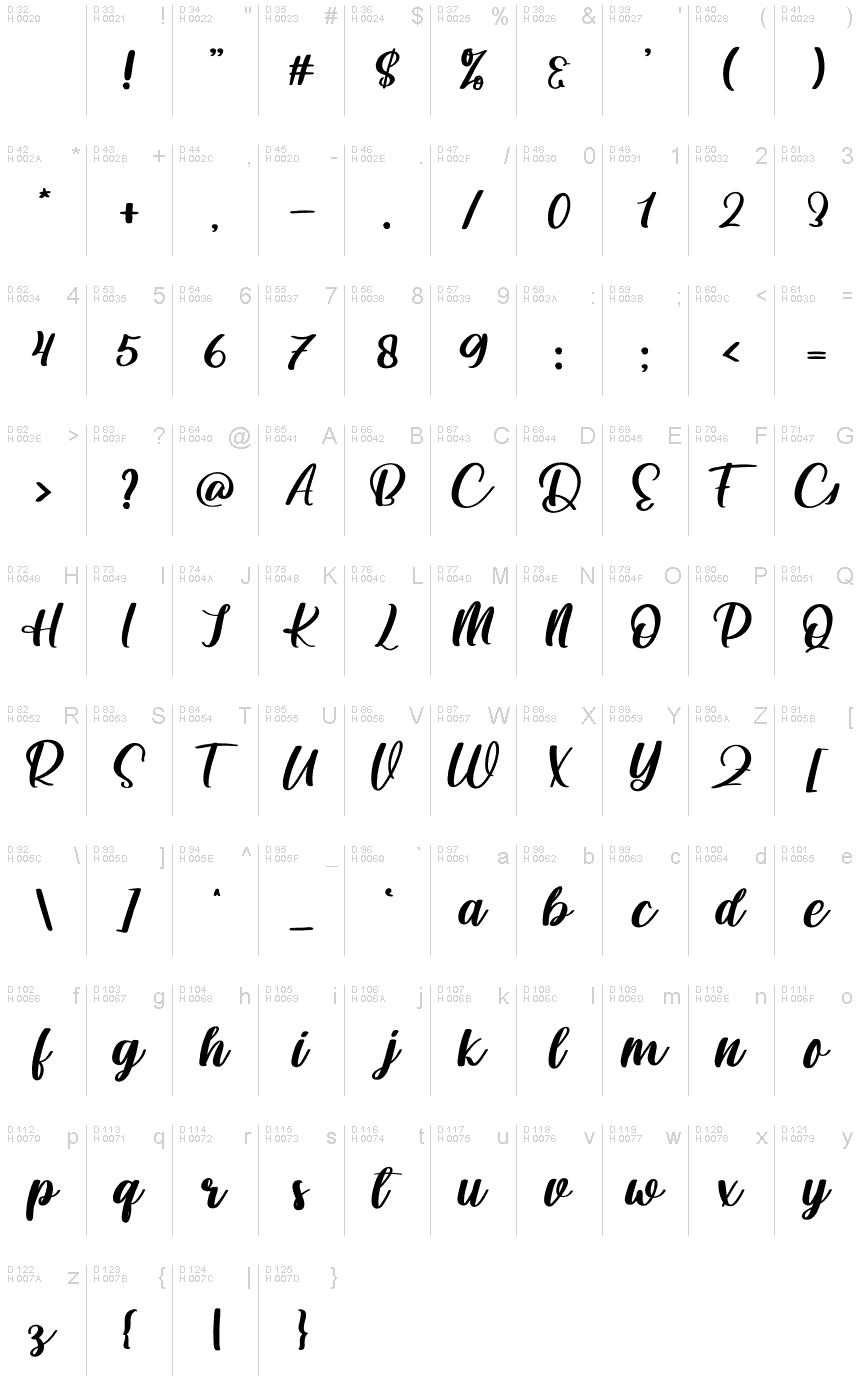
Dandelions
Dandelions, a whimsical and playful handwritten font designed by FreshtypeINK, is perfect for adding a touch of creativity to any project. This semi-bold typeface exudes personality and charm, making it an ideal choice for everything from children's books to greeting cards. Whether you're looking to add a bit of fun to your website or want to create eye-catching posters and flyers, Dandelions will help your message stand out. So why not try this unique and artistic font for your next project? Let the magic of Dandelions elevate your design game!